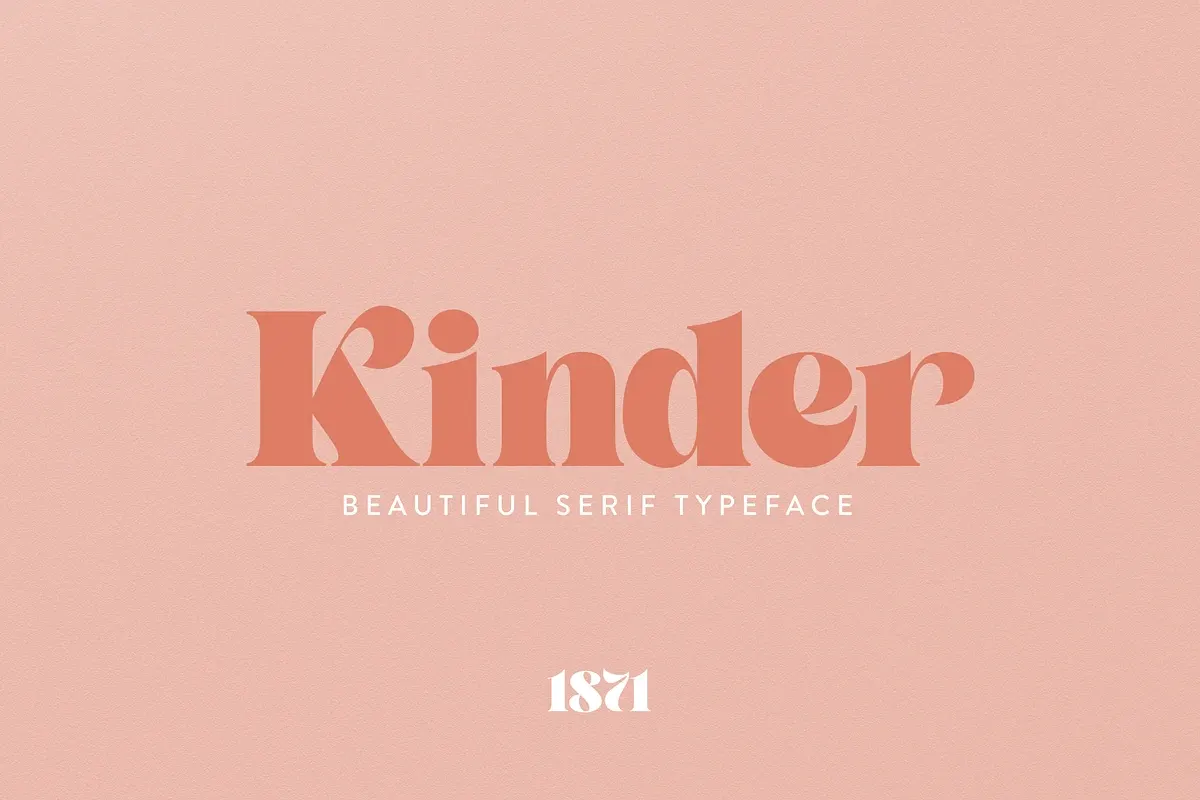
Kinder Font Free Download
The Kinder Font Free Download is a playful and charming typeface designed with a youthful and friendly vibe. Perfect for children’s content, educational designs, social media graphics, branding, and invitations, this font brings a fun, approachable style to your projects.
With its rounded, easy-to-read letterforms, Kinder offers a casual and cheerful feel, making it ideal for projects that target a younger audience. It includes uppercase and lowercase letters, numbers, punctuation, and multilingual support, making it versatile for a variety of design applications.
Add a fun, whimsical touch to your designs with the Kinder Font Free Download. Try it today and bring a lighthearted, joyful style to your creative projects!